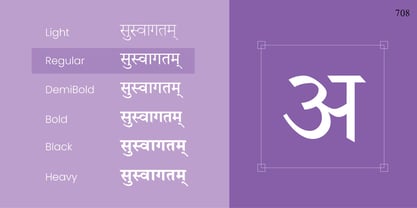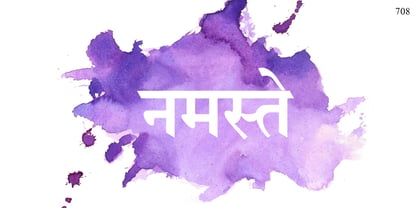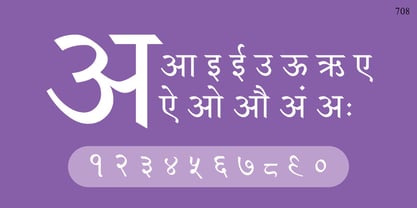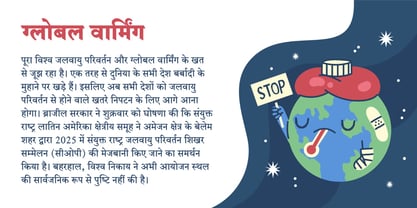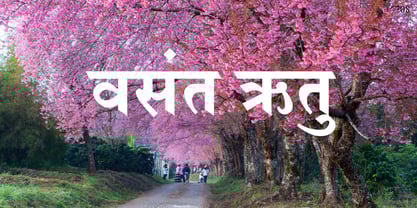
Shree Devanagari 0708
by Modular InfoTech
Shree Devanagari 0708 Font Family was designed by Modular Infotech and published by Modular InfoTech. Shree Devanagari 0708 contains 12 styles family package options.
ShreeDev0708 is a sans-serif font widely used in Newspapers and Magazines. In India, it is predominantly used by news agencies and custom publications. This font family offers six weights: Light, Regular, Medium, Bold, Black, and Heavy. It supports various conjuncts, making it ideal for producing visually appealing text articles. With approximately 415 Devanagari characters, the font is designed to deliver excellent readability, even at small point sizes.